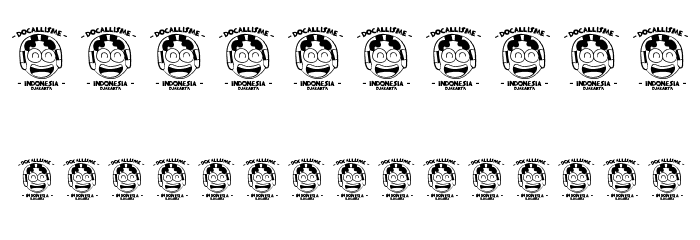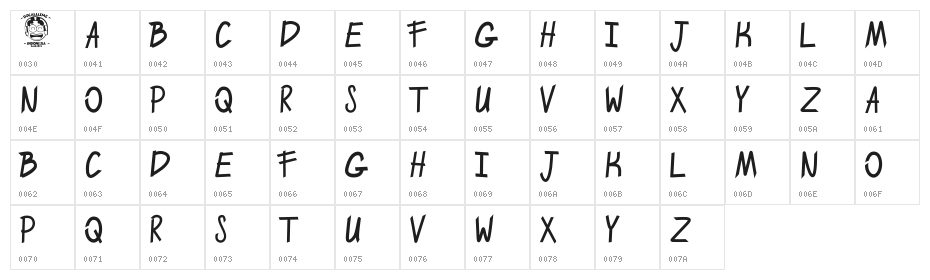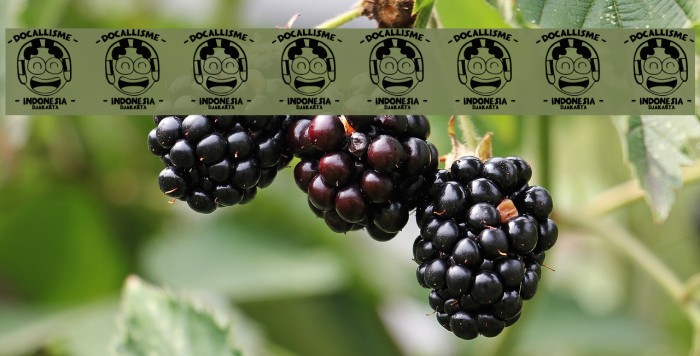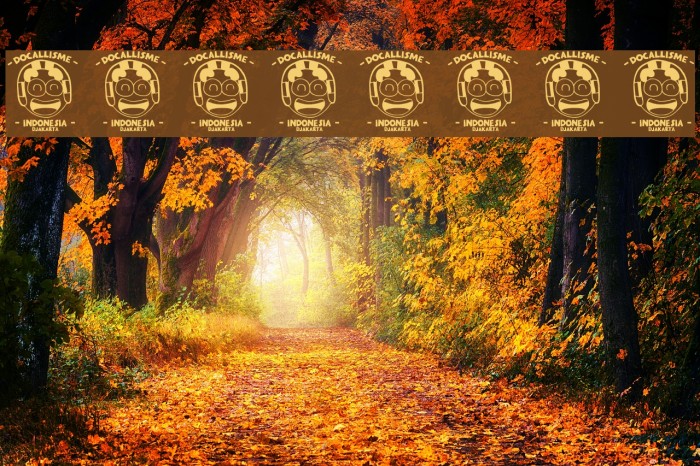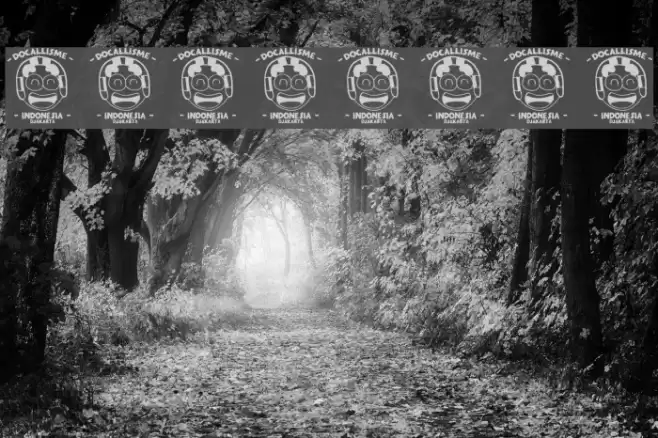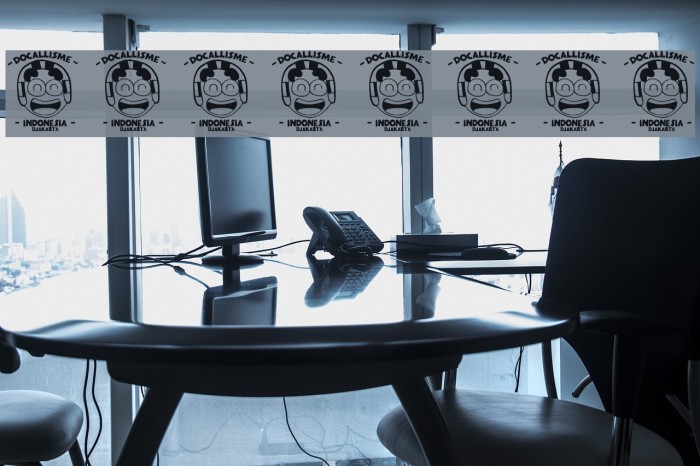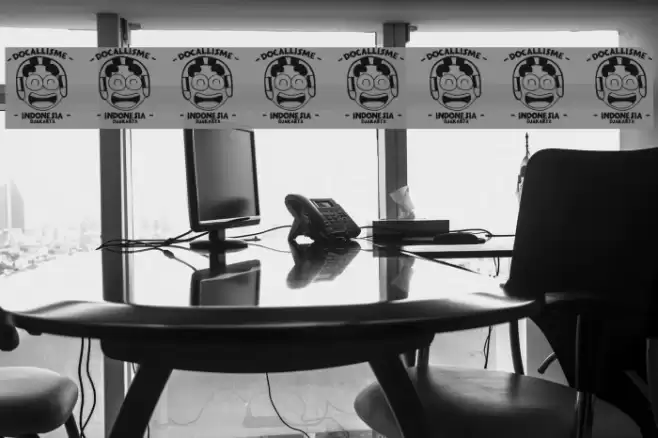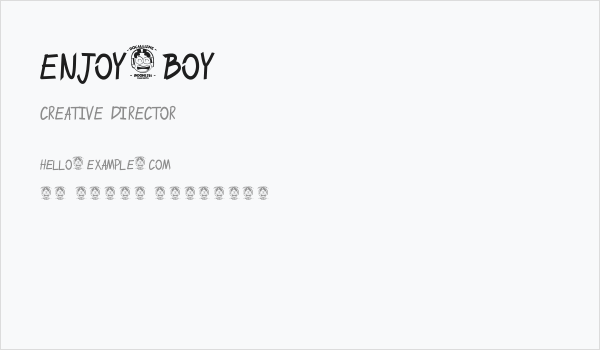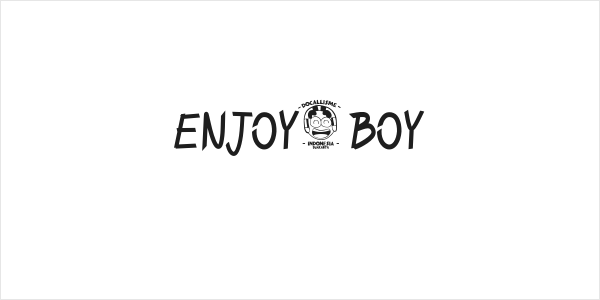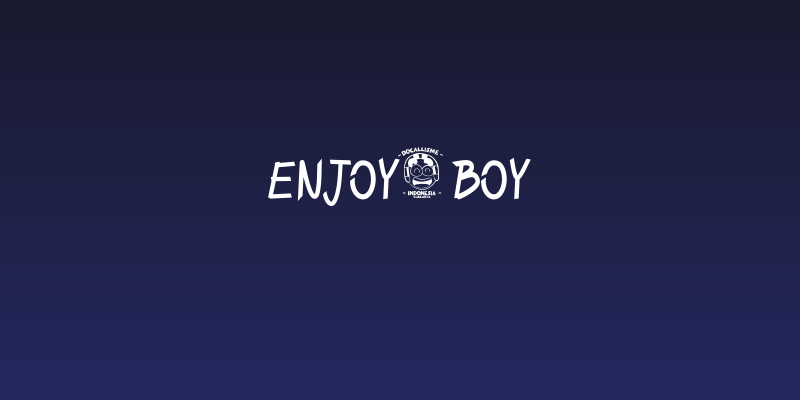
ENJOY-BOY Font
ENJOY-BOY Description
Playful, rounded sans-serif font with uniform stroke width, featuring friendly and approachable letterforms. Characters are bold and have a cartoon-like appearance, with wide spacing and consistent proportions. The font exudes a fun and youthful vibe, suitable for informal contexts.
| Overall Style | Playful, Decorative |
| Use Case | Headlines, Logos, Posters, Children's materials |
| Proposed Projects | Children's books, comic titles, toy packaging, playful branding, party invitations. |